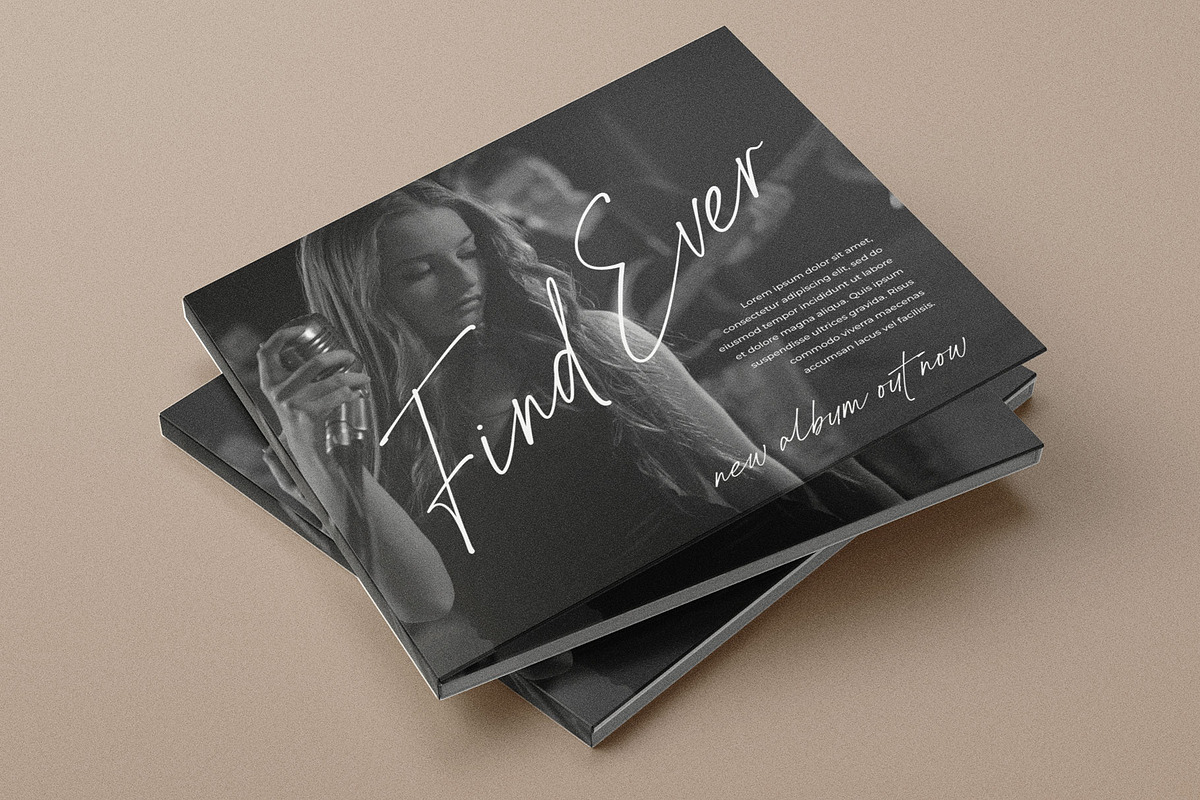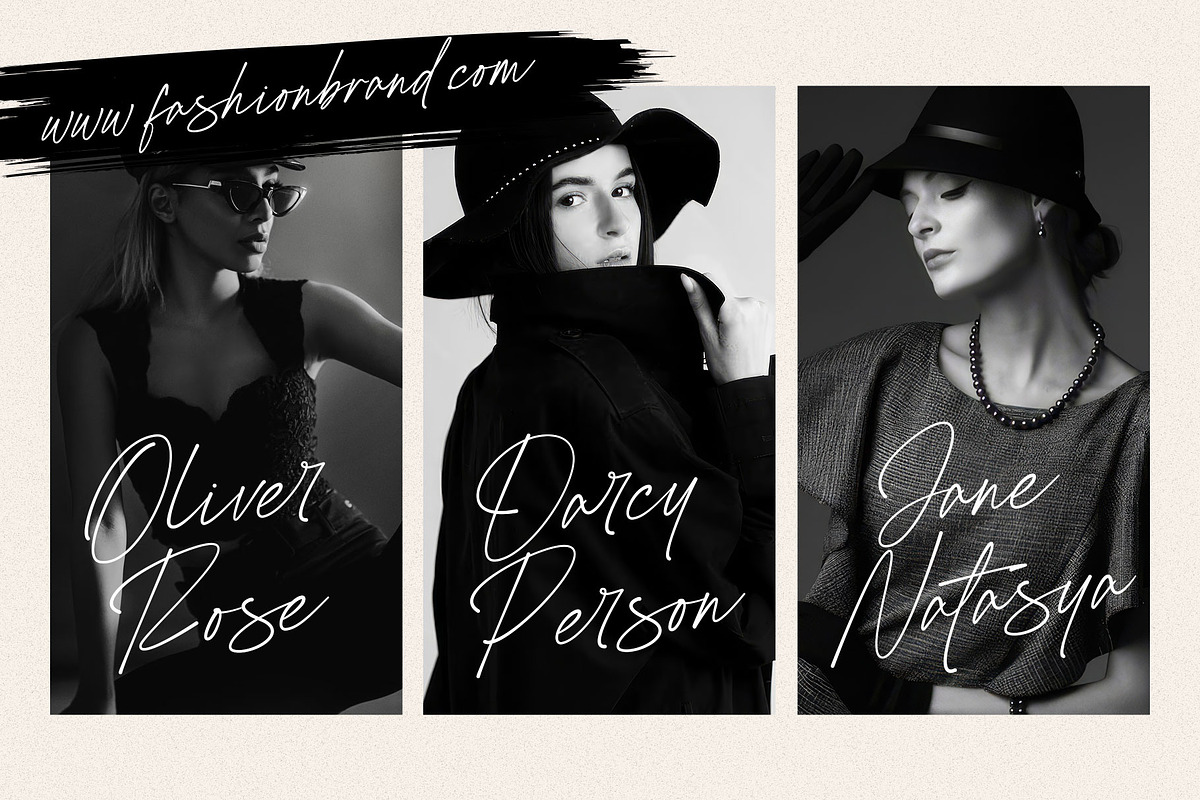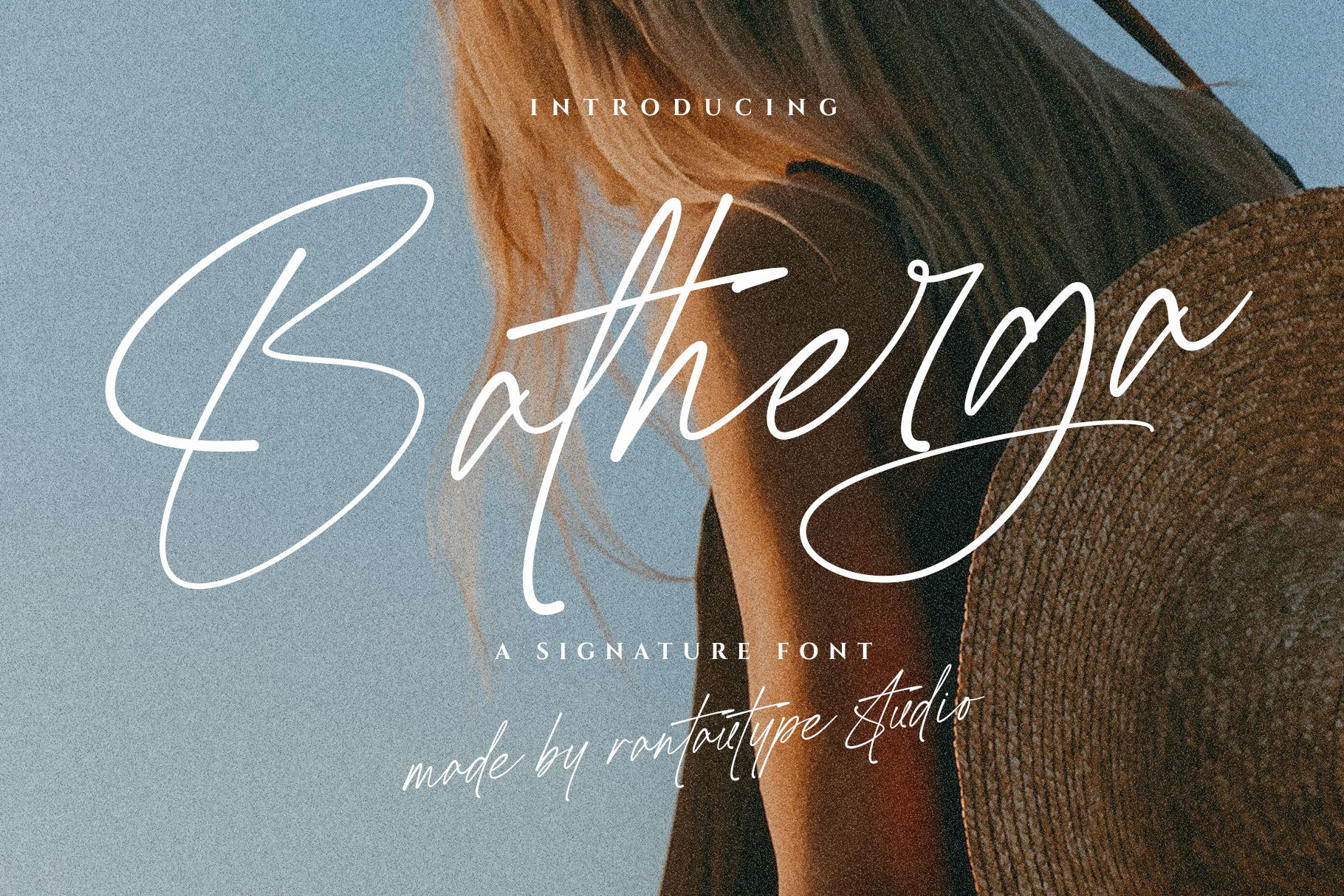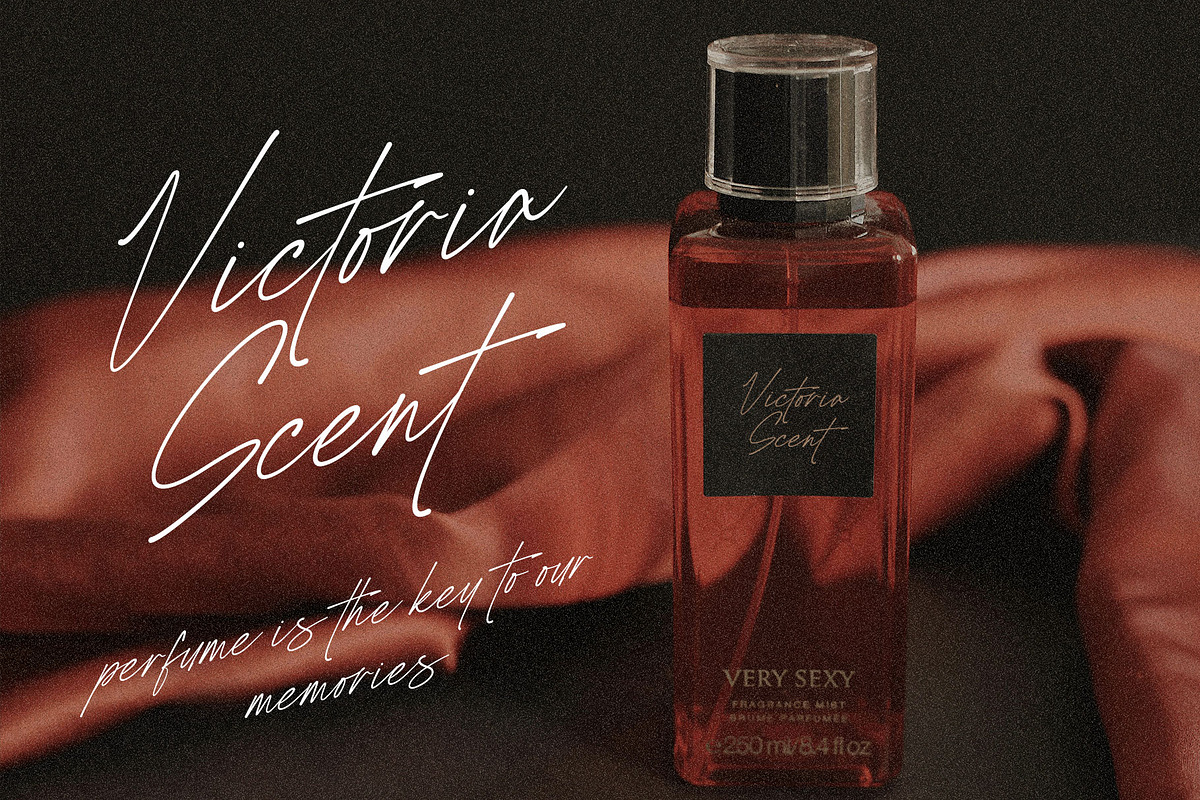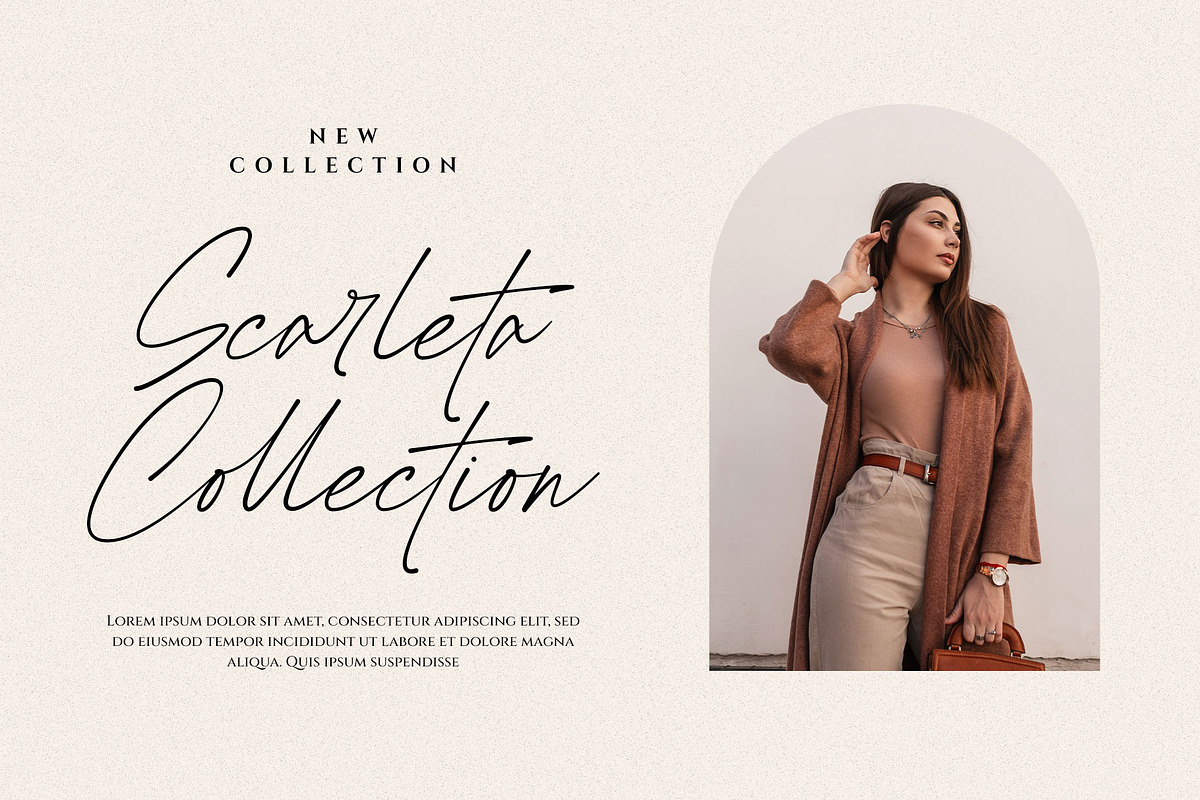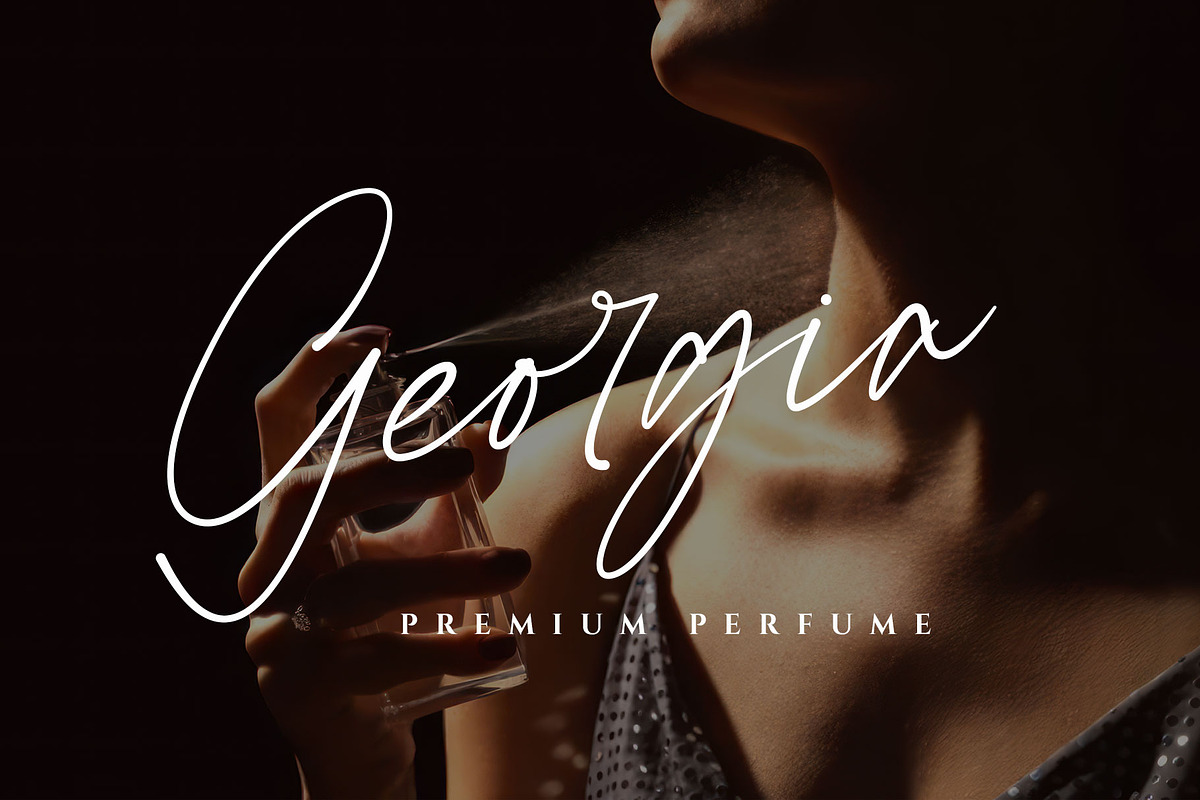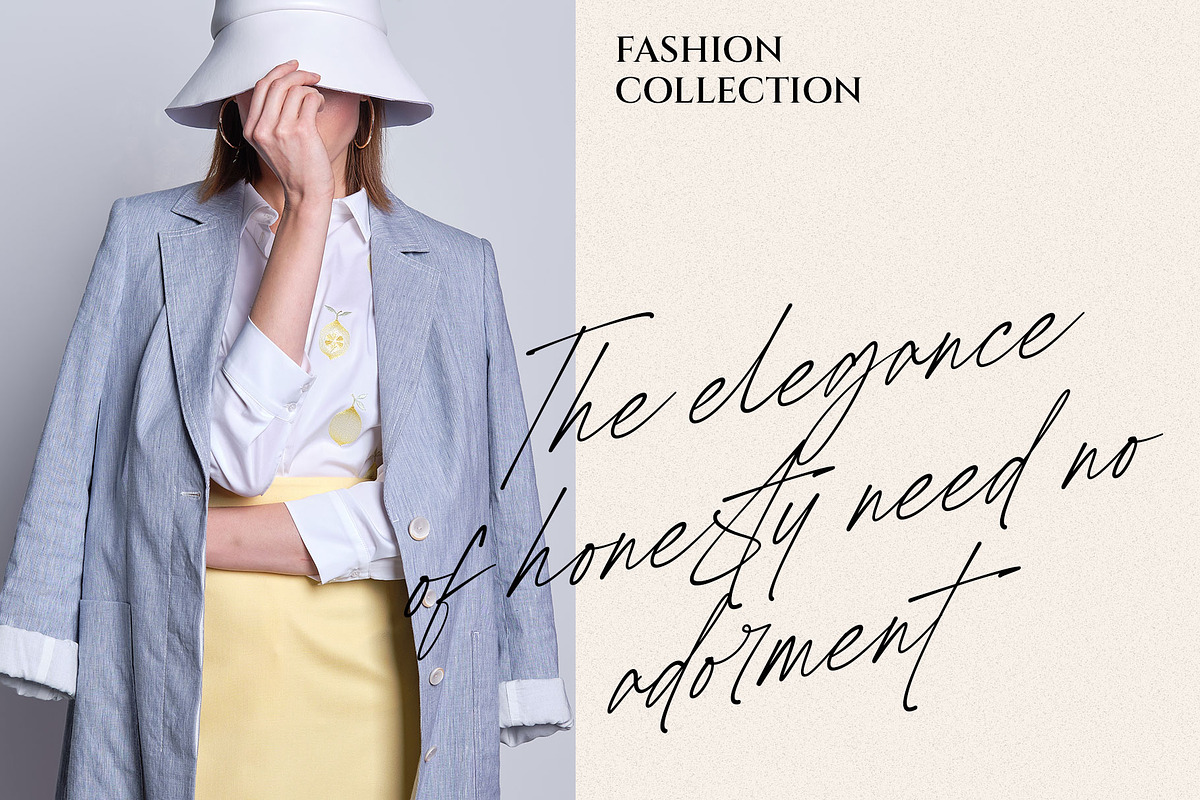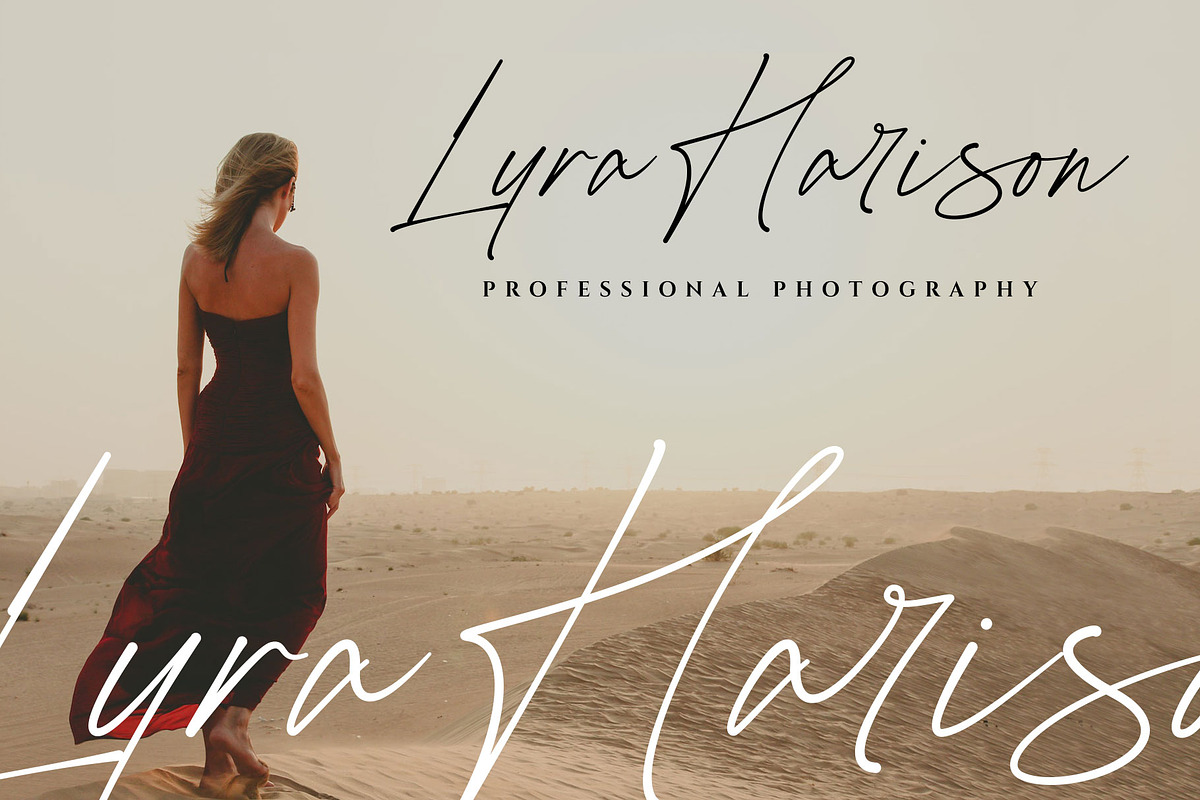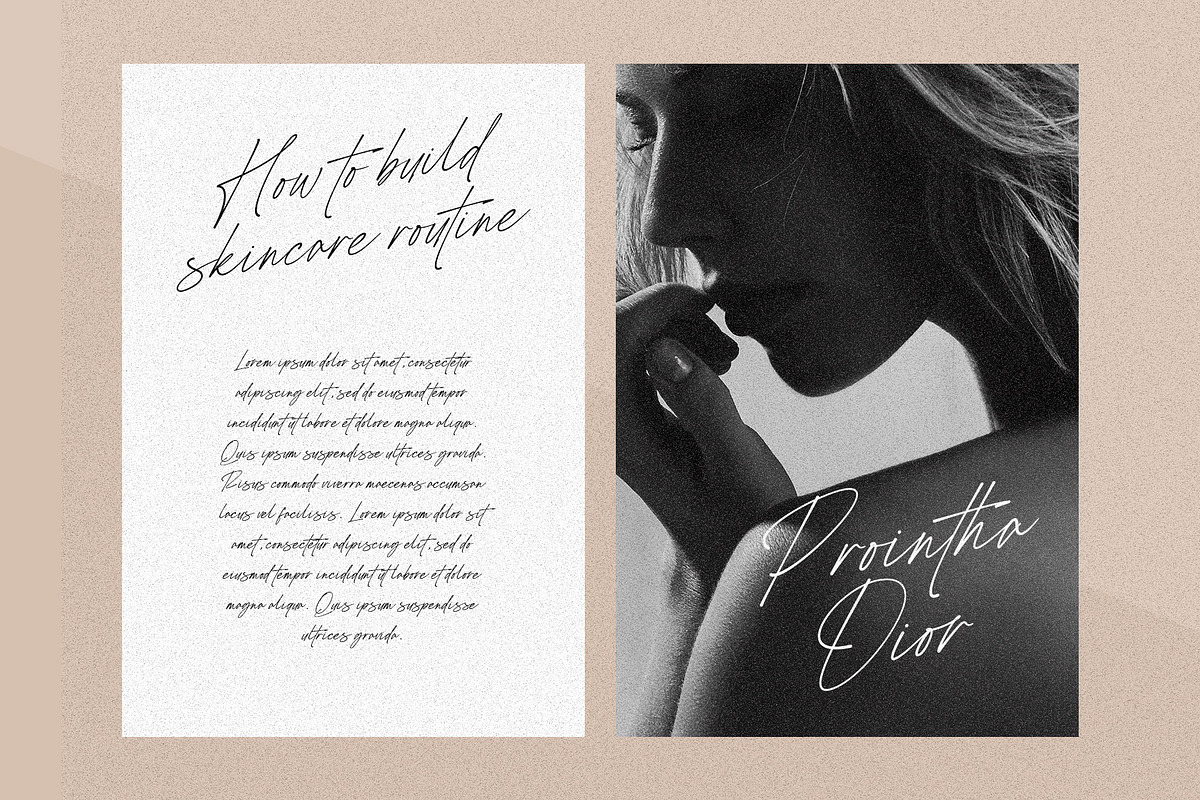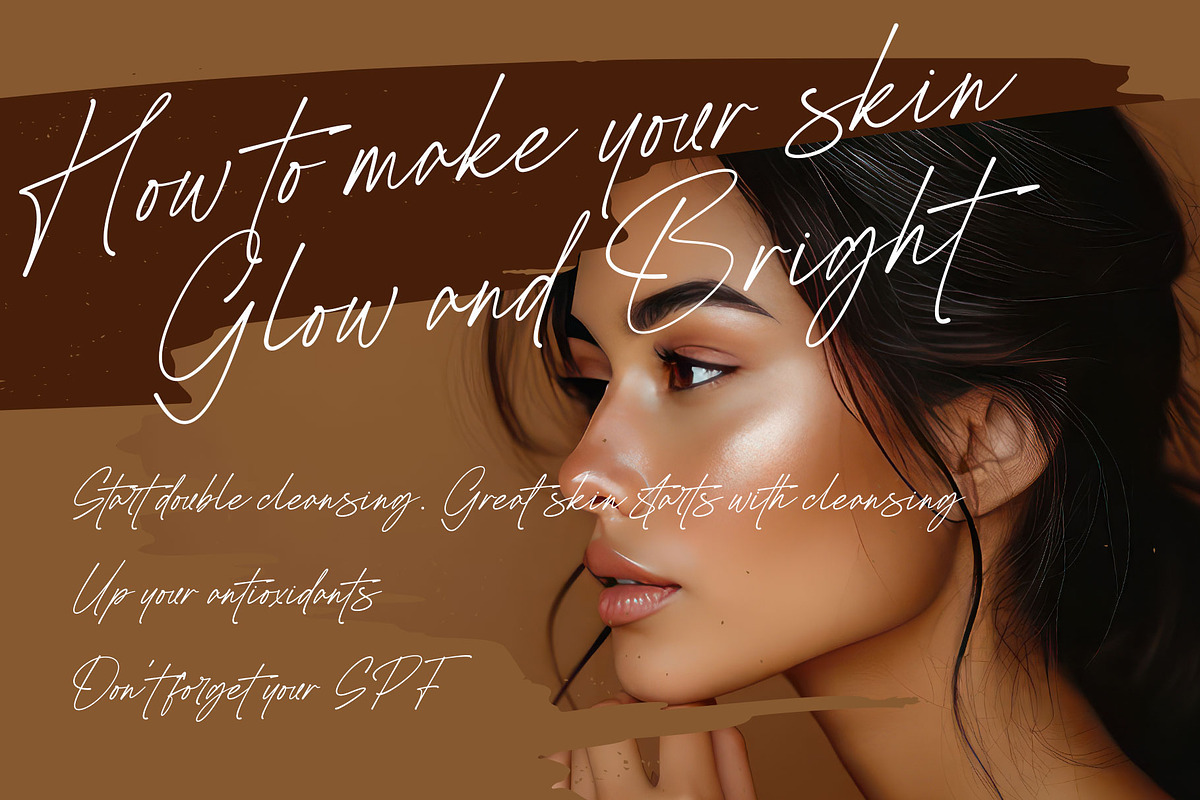
Batherga Signature Font
Batherga - a new signature font inspire by stylish script font. Batherga is a perfect choice for any creative endeavor, chic, lifestyle design such as logos, title, watermark on photography, cover, branding, display and magazine, wedding event, corporate brand, quotes, album cover, business card, business project, company branding and more project with handwritten taste.
- Standart Glyphs
- Alternate and ligature
Fonts include Multilingual Character for: Afrikaans, Albanian, Asu, Basque, Bemba, Bena, Breton, Chiga, Cornish, Dutch, English, Estonian, Filipino, Finnish, Friulian, Galician, Gusii, Indonesian, Irish, Italian, Kabuverdianu, Kalenjin, Kinyarwanda, Luo, Luxembourgish, Luyia, Machame, North, Oromo, Portuguese, Quechua, Romansh, Rombo, Rundi, Rwa, Samburu, Sango, Sangu, Scottish, Gaelic, Sena, Shambala, Shona, Soga, Somali, Spanish, Swahili, Swedish, Swiss, German.